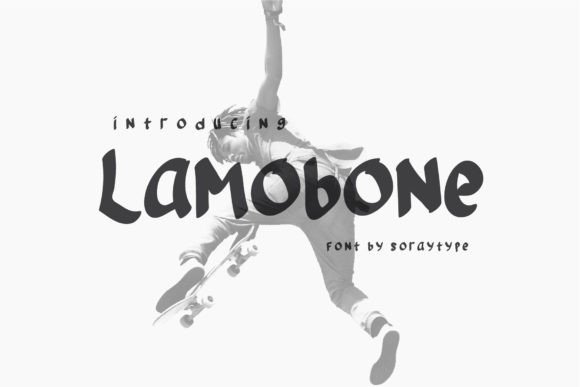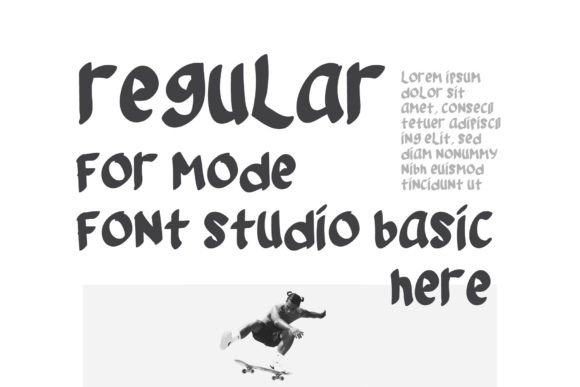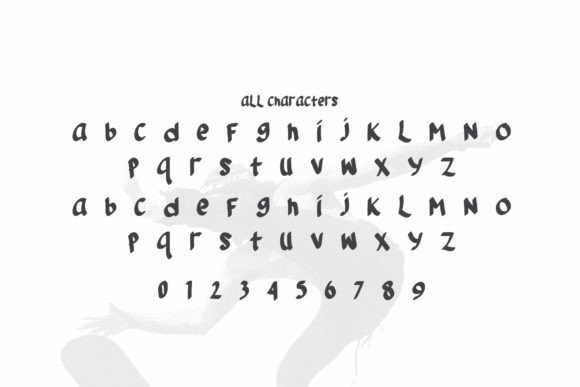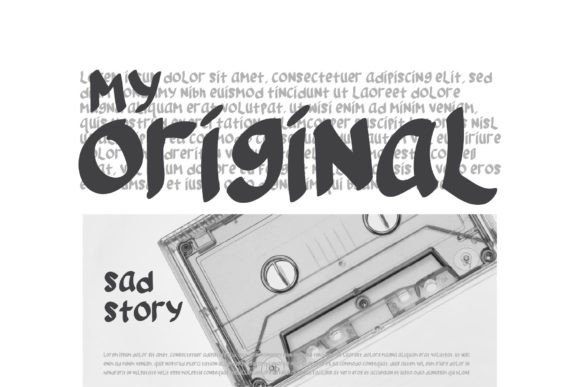
Lamobone Font: A Playful Handwritten Font for Cute DIY Projects & Branding
About the Lamobone Font
Meet Lamobone Font, a stunning font that brings a touch of elegance and professionalism to any design. Lamobone is a playful handwritten font with a marker-like charm. Its casual and free-flowing style gives your text a friendly and approachable vibe. Perfect for adding a touch of warmth to invitations, notes, or any project that benefits from a relaxed, handcrafted feel. Choose Lamobone for a whimsical and easygoing look that brings a personal touch to your design.
Lamobone’s playful energy makes it ideal for projects needing a friendly, approachable feel, such as branding for children’s products, invitations, short social media posts, or packaging for artisan goods. It excels in headlines, short quotes, and logotypes where its handcrafted charm shines. However, its informal nature makes it less suitable for large blocks of body text or user interfaces requiring high readability.
Pairing Lamobone effectively requires considering its casual style. A clean sans-serif like Montserrat or Lato provides a strong contrast, grounding the playful script. For a more sophisticated look, a classic serif like Garamond or Playfair Display adds a touch of elegance, balancing the informality. Avoid pairing it with other highly decorative or script fonts to prevent visual clutter.
Lamobone’s overall personality is best described as friendly and whimsical, conveying warmth and approachability. Its casual charm makes it perfect for brands aiming for a personal and inviting image, while its readability limitations should be considered when selecting applications.
Lamobone Font Usage Examples
Lamobone Font Example